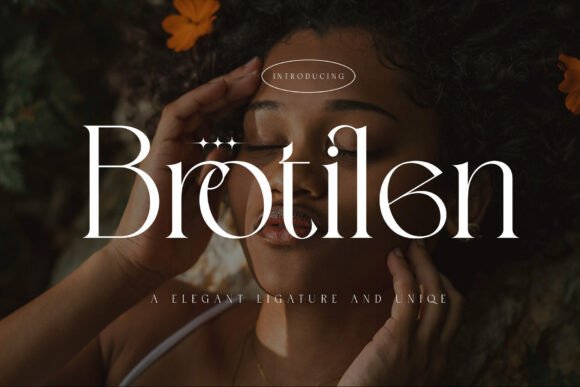
The Elegance of Brotilen: A Modern Serif Font for Upscale Designs
I’ll never forget the moment I stumbled upon the perfect font for a client’s high-end floral design project. I had been searching for what felt like hours, scrolling through endless pages of Google Fonts and font libraries, but nothing seemed quite right. That was until I discovered **Brotilen**, an elegant ligature serif modern font that instantly captured the essence of fresh blooms and timeless elegance. In this article, I’ll share my journey with Brotilen, its features, and how to make the most of this beautiful font in your designs.
My First Impressions: A Love Affair with Brotilen
As soon as I saw Brotilen, I knew it was something special. The bold yet refined ligatures, the soft and graceful presence of each letter – it was love at first sight! I quickly realized that this font would be perfect for upscale designs, whether for florals, fashion, or high-end branding. Brotilen pairs the charm of classic serif styles with a modern twist, making it a sophisticated and feminine typeface that elevates any project it touches.
What I Love About Brotilen ✨
• ✅ Elegant ligatures that add a touch of sophistication to any design
• ✅ Soft and graceful presence that makes text feel intentional and refined
• ✅ Perfect for upscale designs, including florals, fashion, and high-end branding
• ✅ Works beautifully in both digital and print formats
• ⚠️ Some users may find the font a bit too ornate for certain projects
• ⚠️ Limited availability of certain characters or glyphs in certain software
Unlocking OpenType Features and Glyphs
One of the best things about Brotilen is its OpenType features and glyphs. These allow you to customize your text and add unique touches to your designs. To access these features, you’ll need to use a software that supports OpenType, such as Adobe Illustrator or Photoshop. Some of the features you can expect to find in Brotilen include:
• Ligatures: Replace standard character combinations with stylized ligatures
• Stylistic Alternates: Swap out characters for alternative designs
• Glyphs: Access additional characters, such as ornaments or swashes
The Story Behind Brotilen: Designer Inspiration
Brotilen was designed with the intention of capturing the beauty of fresh blooms and timeless elegance. The designer, inspired by the intricate details of flowers and the softness of petals, created a font that would evoke a sense of refinement and natural grace. With its elegant ligatures and soft presence, Brotilen is the perfect choice for designers looking to add a touch of sophistication to their work.
Q: What makes Brotilen unique?
A: Brotilen’s unique combination of elegant ligatures, soft presence, and refined features make it a standout font for upscale designs.
Q: Is Brotilen suitable for digital use?
A: Yes, Brotilen works beautifully in both digital and print formats, making it a versatile choice for designers.
Q: Can I use Brotilen in languages other than English?
A: Brotilen supports multiple languages, but be sure to check the character set to ensure it includes the characters you need.